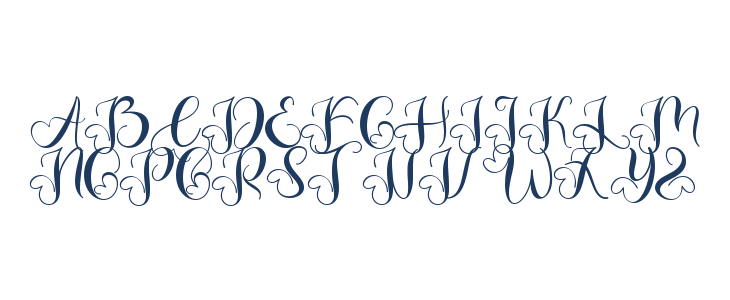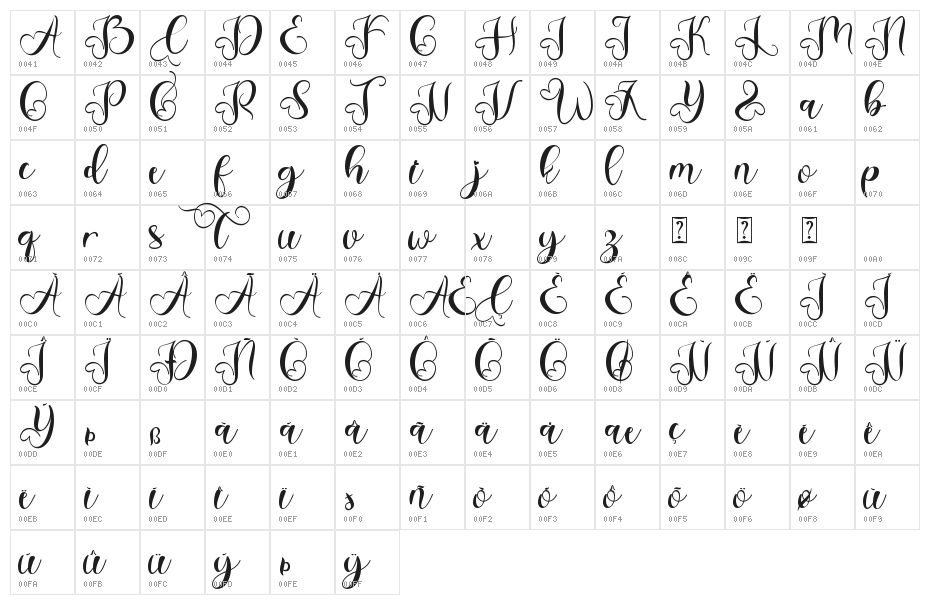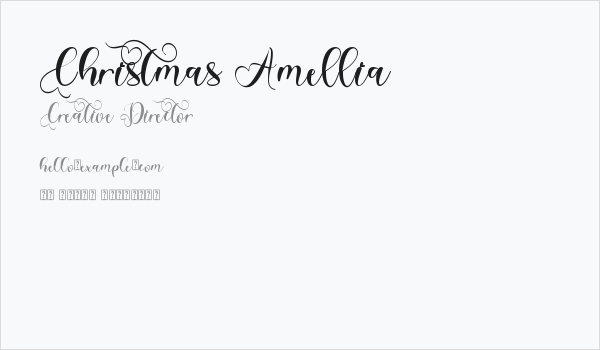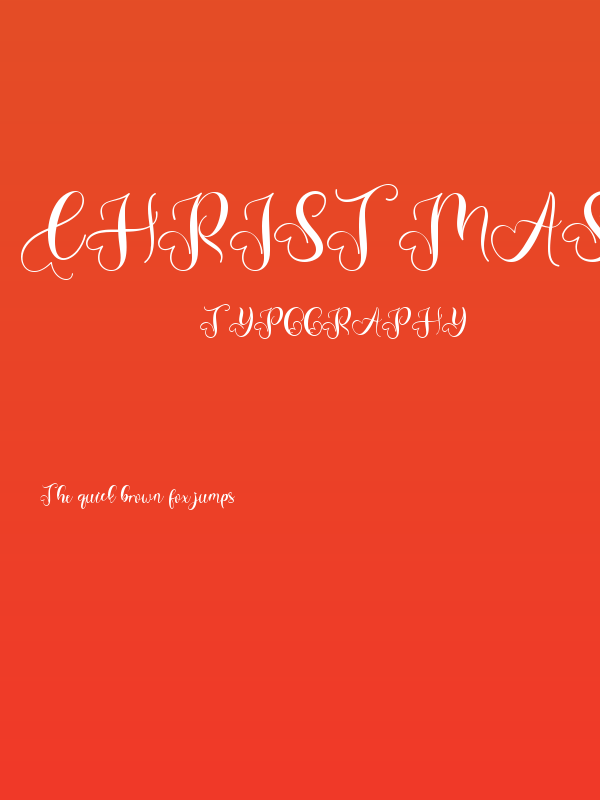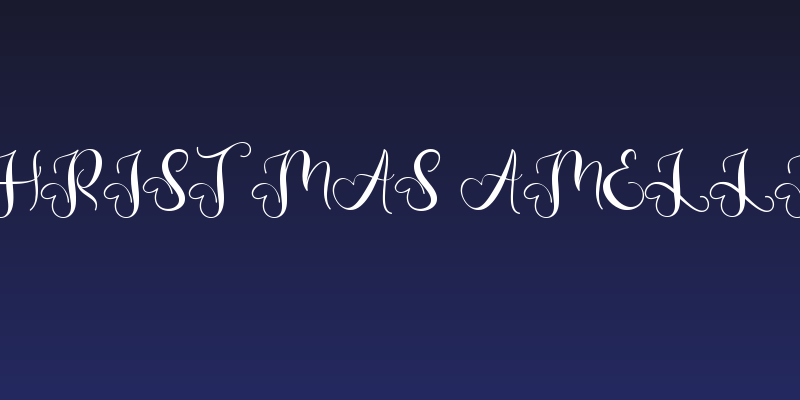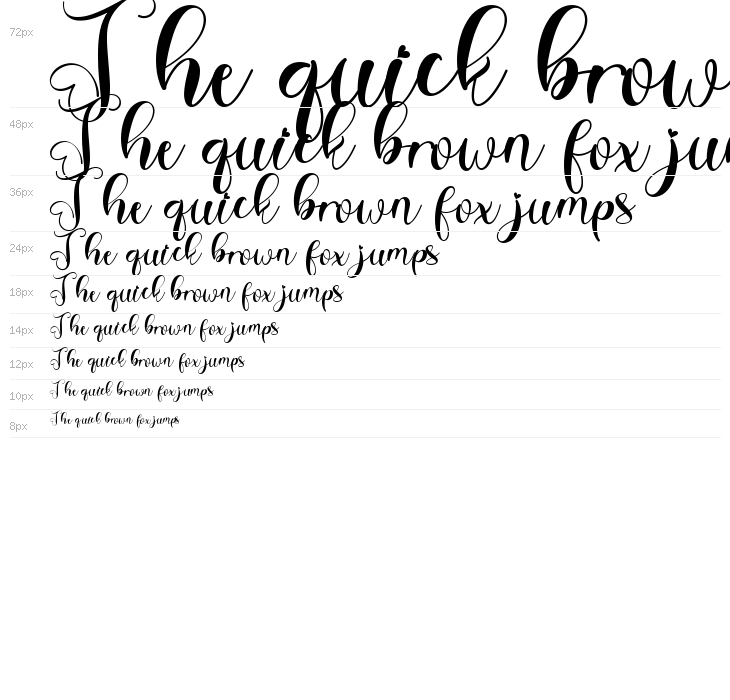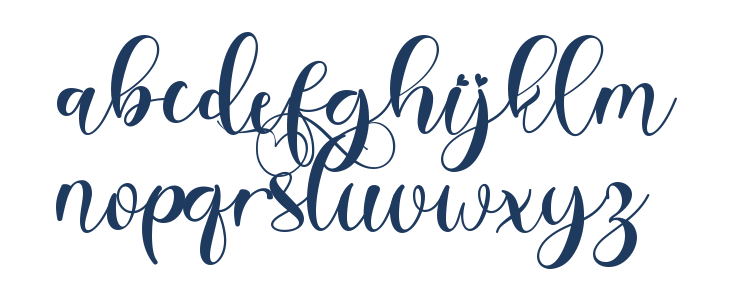
Christmas Amellia Font
Christmas Amellia Description
Elegant script font with ornate swashes and flourishes, featuring high contrast between thick and thin strokes. The uppercase letters are highly decorative, while the lowercase set is flowing and connected, with some exaggerated ascenders and descenders.
| Overall Style | Decorative, Elegant, Festive |
| Use Case | Logos, Invitations, Headlines, Greeting cards |
| Proposed Projects | Wedding invitations, holiday cards, luxury branding, event signage, decorative headlines. |